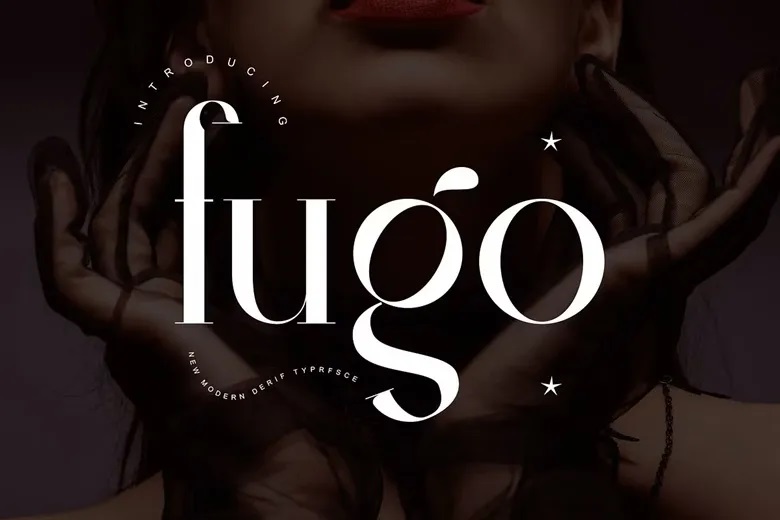
Fugo Font
Fugo is a polished and sophisticated serif typeface that combines contemporary design with a subtle feel of nostalgia. Its uniform character makes it a strong option for magazines, logos, and social media visuals, where beauty and personality need to seamlessly function together. Created for designers who need to bring beauty, class and modern charm into their crafts, this font adds a chic and stylish finish without looking overdone.
Created with OpenType features, Fugo includes numerals, ligatures and full punctuation support. It also offers compatibility across multiple languages. This makes it highly practical and visually appealing for professional design use.
Fugo Serif Font